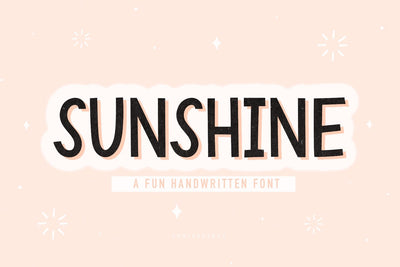
Sunshine | Sans Serif Handwritten Font
Sunshine is a modern and clean handwritten sans serif font, perfect for invitations, logo design, branding, procreate design, t-shirt design, cricut crafts, quotes and much more!